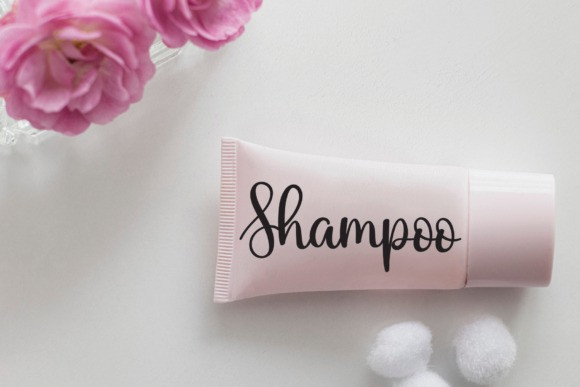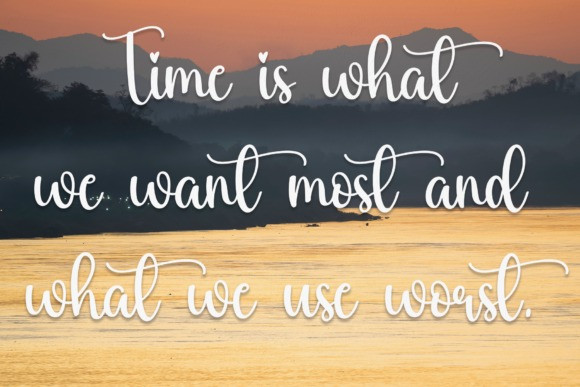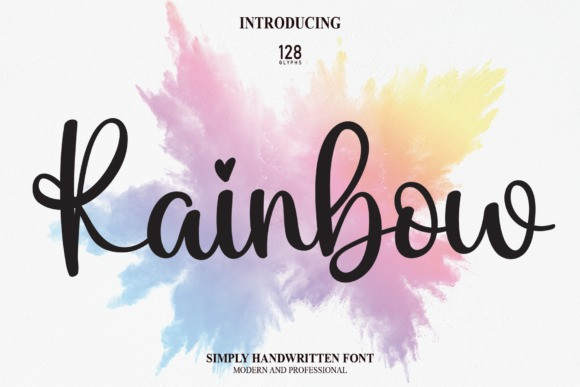
Rainbow Script Font
Rainbow Script Font, is a fun and friendly handwritten font. Use it to turn any design idea into a true standout. Get inspired by its unique charm and create lovely designs.